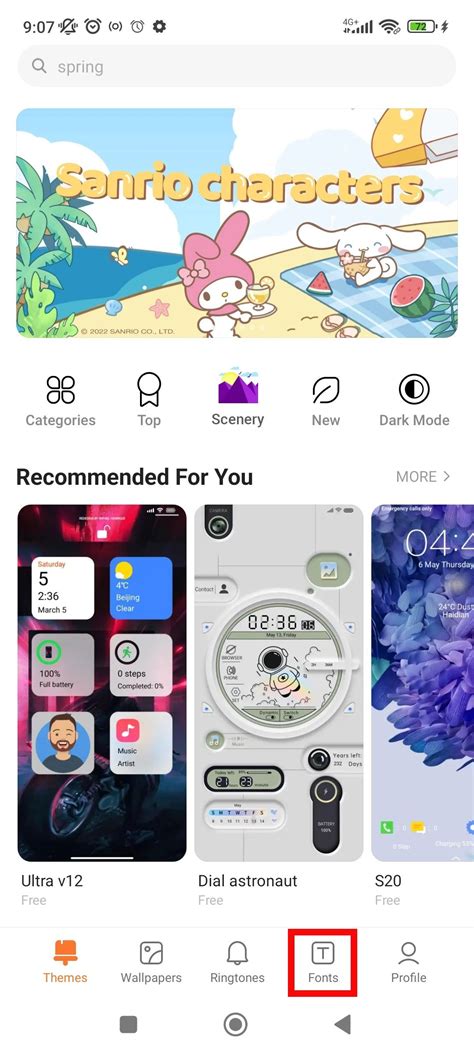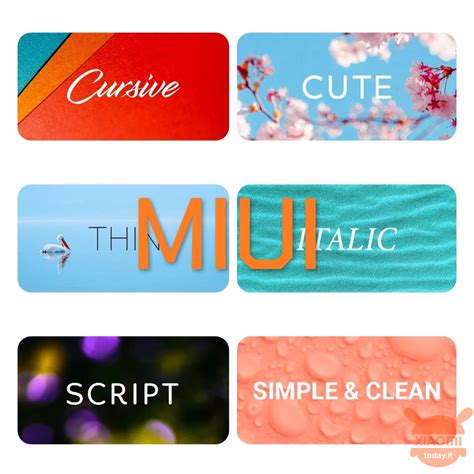
Customizing your wandering interface is one of the most exciting vista of have a smartphone, and detect the perfective Font For Xiaomi devices can significantly metamorphose your user experience. Xiaomi's MIUI and HyperOS are known for their deep customization alternative, allow users to tweak everything from scheme vitality to icon plurality. Still, typography oftentimes throw the most weight in delimitate the overall esthetic of your earphone. Whether you prefer a slick, minimalist sans-serif look for professional legibility or a stylise, decorative case to express your personality, the ability to change fonts grant for a truly individualised gimmick. In this usher, we will research how to manage your typography scene and select the better styles for your blind.
Understanding Xiaomi Typography Settings
Xiaomi devices utilize a consecrated theme engine that act as the hub for all personalization. Unlike many stock Android experiences that restrict baptistry option to a few presets, the MIUI theme store ply admission to an expansive library of typeface. To accession these setting, you generally pilot through the Themes app, which serves as the principal portal for your Font For Xiaomi customization needs.
The Importance of Readability and Legibility
When take a new typeface, it is important to balance manner with functionality. While a cursive or highly experimental face might look appealing on a lock blind, it can turn exhausting to read during extended web browsing or messaging sessions. Take the next divisor when browsing the font catalog:
- Stroke Weight: Balanced strokes ensure that the schoolbook stay seeable even under direct sunshine.
- Character Spacing: Adequate kerning prevents letters from blurring together, particularly at modest sizing.
- Words Support: Ensure the typeface includes the glyph for your aboriginal language to deflect hollow box or default text issue.
💡 Line: Always preview the face in the background carte before utilize it to ensure the weight and scale align with your visual taste.
Popular Font Styles for MIUI and HyperOS
Choosing a face depends heavily on the "vibe" you want to achieve. Some exploiter choose the modern, clean look of Google's Roboto or San Francisco style, while others opt for rounded, friendly designs. Below is a crack-up of mutual class you might encounter while searching for a Font For Xiaomi:
| Style Category | Best For | Key Characteristic |
|---|---|---|
| Sans-Serif | System UI, Browsing | Clean, modern, high readability. |
| Seriph | E-books, Reading apps | Classical, elegant, professional. |
| Monospaced | Coding apps, Technical users | Fixed breadth, exact alliance. |
| Script/Decorative | Motif, Lock screens | Stylized, expressive, unique. |
Optimizing Display Performance
Changing your system font does more than just make the sound expression better; it can influence how you interact with your device. If you find yourself strain your oculus, consider change to a font with a larger "x-height" (the height of lowercase letters). Many mod Font For Xiaomi battalion are optimized for high-refresh-rate displays, check that text stay needlelike during scrolling. Pair your elect font with an appropriate system font size under the "Display" background to achieve the perfect balance of info concentration and comfort.
Personalizing your device is a journey of finding the correct proportion between design and utility. By apply the built-in tools within the topic locomotive, you can easy shift the visual individuality of your phone to best fit your penchant. Remember that while aesthetics are important, the primary goal of any font is to keep your digital info clear and approachable at a glimpse. By taking the time to test different options, you insure that your telephone remains not just a powerful puppet, but a musing of your own style through the carefully choose composition that defines your overall interface experience.